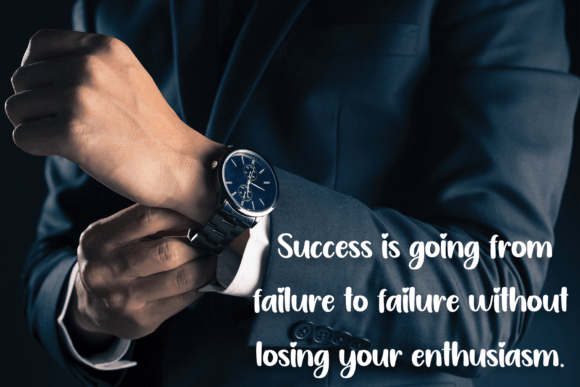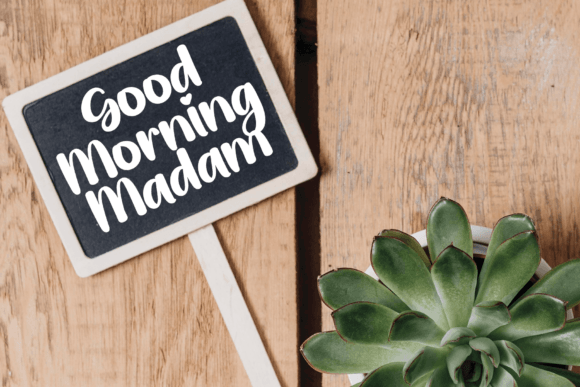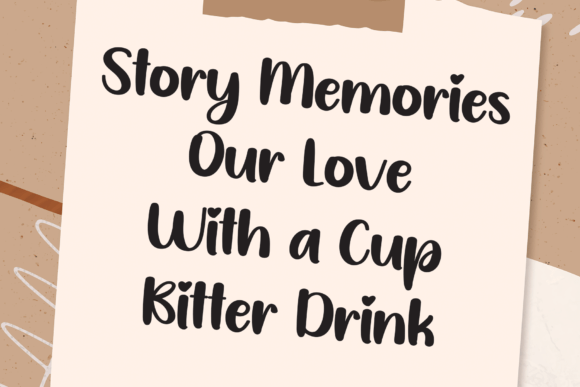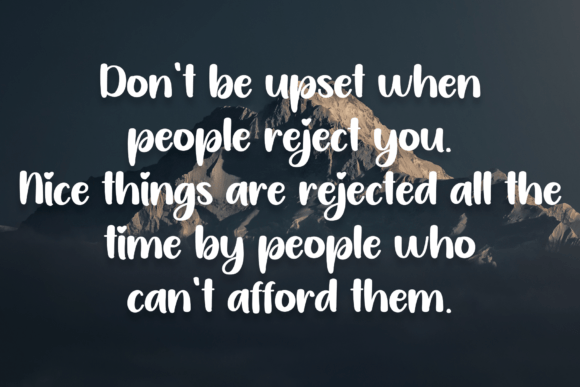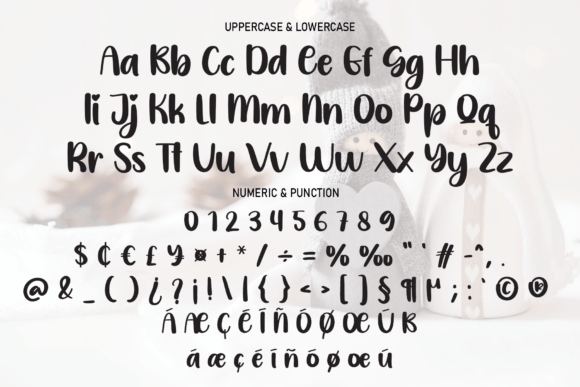
The Joy of Typography: Discovering the Babydoll Font
Have you ever stumbled upon a font that instantly lifts your mood and sparks creativity? For me, it was the moment I laid eyes on the Babydoll Font. Its whimsical, handwritten charm transported me to a world of playful possibilities. Whether you’re designing a new brand, crafting a wedding invitation, or simply experimenting with typography, Babydoll Font is sure to bring a smile to your face.
Babydoll Font is more than just a pretty face – it’s a powerful tool for designers. With its versatility and charm, it’s perfect for branding, packaging, logotype, and headline design. Its happy, handwritten style is sure to add a touch of warmth and personality to any project. Whether you’re a seasoned pro or a design newbie, Babydoll Font is an essential addition to your toolkit.
Babydoll Font Key Features
- Font Family: Babydoll is a unique, handwritten font family that offers a range of styles and weights.
- Unique Characteristics: Features a mix of cursive and handwritten elements, with a soft, feminine touch, making it perfect for designs targeting a female audience.
- Style Variations: Includes multiple styles, such as Babydoll, Babydoll Script, and Babydoll Hand, offering designers a range of options to suit their creative needs.
Babydoll Font Review
I recently had the chance to work with the Babydoll Font, and I must say, it’s a unique and charming addition to any design project. ✨ The font’s soft, cursive style is reminiscent of handwritten notes and adds a touch of warmth to any text. It’s perfect for designs that need a gentle, feminine feel.
Here are some of the things that work well with Babydoll Font:
- ✨ Its versatility in various design applications, from branding to editorial content.
- ✨ The font’s ability to convey a sense of approachability and friendliness.
- ✨ The many OpenType features that allow for nuanced typographic expression.
- ⚠️ The font may not be the best choice for projects that require a strong, bold statement.
- ⚠️ It may be difficult to read in smaller font sizes or when used extensively in large blocks of text.
Overall, I think the Babydoll Font is a great addition to any designer’s toolkit. While it may not be suitable for every project, it’s a wonderful choice for designs that require a touch of warmth and personality. With a little care and consideration, this font can add a unique and charming element to your designs.
Use Babydoll Font for whimsical and feminine designs, such as invitations, greeting cards, and baby shower decorations.
Pair Babydoll Font with other playful fonts or graphics to add a touch of elegance and sophistication.
Babydoll Font is commonly used for:
Baby shower decorations and gifts
Greeting cards and party invitations
Fashion and beauty branding and advertising
Q: What is the recommended font size and line height for Babydoll Font?
The recommended font size for Babydoll Font is between 12pt and 24pt, depending on the context and intended use. For body text, a font size of 14pt to 18pt is recommended, while for headings and titles, a font size of 24pt to 48pt is suitable. The recommended line height is 1.2 to 1.5 times the font size, which will help maintain readability and balance